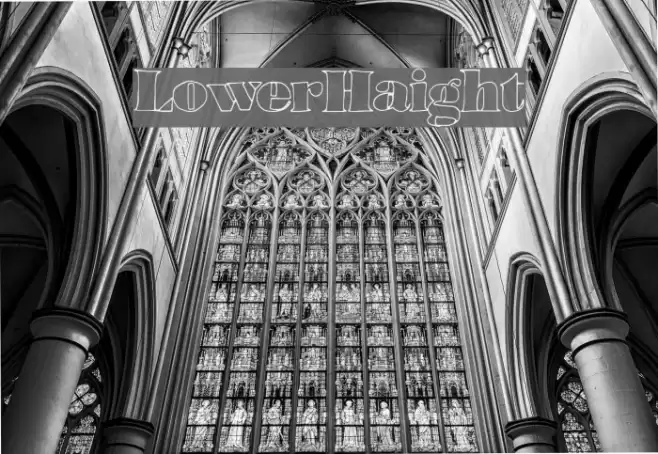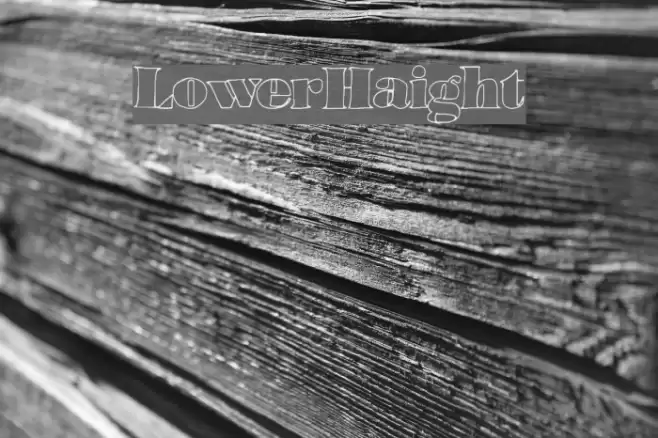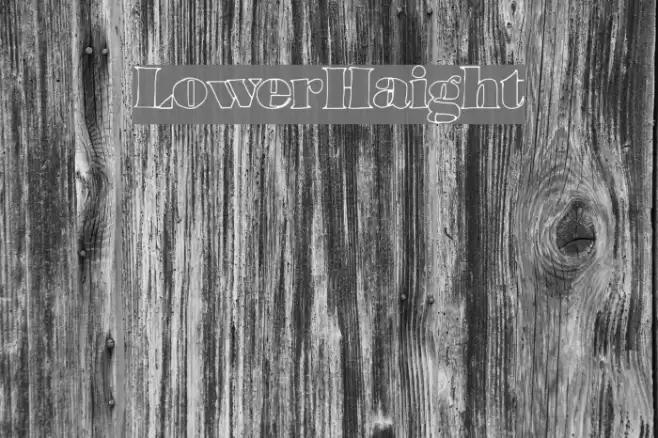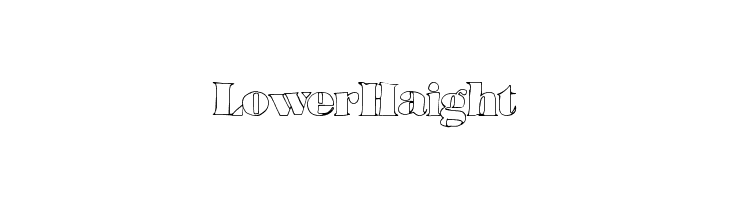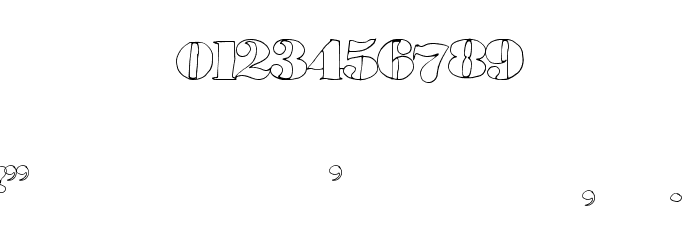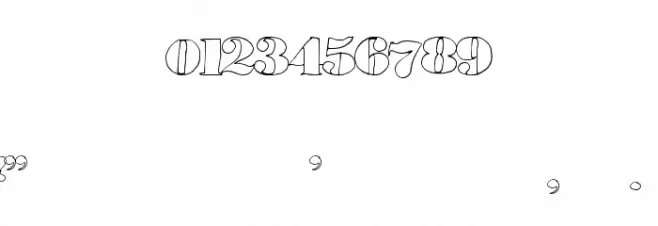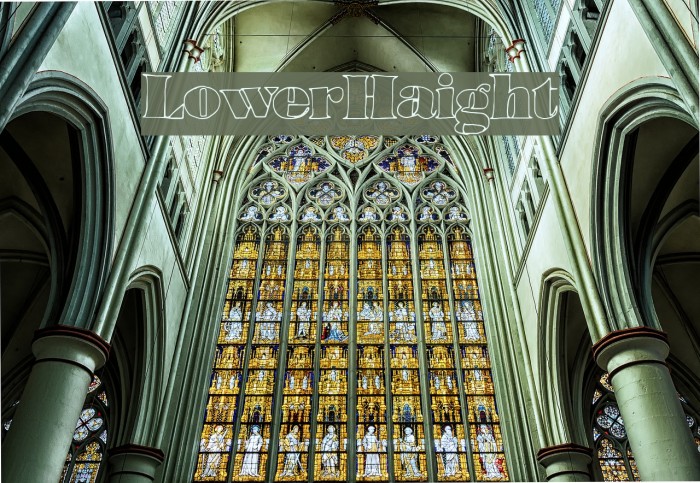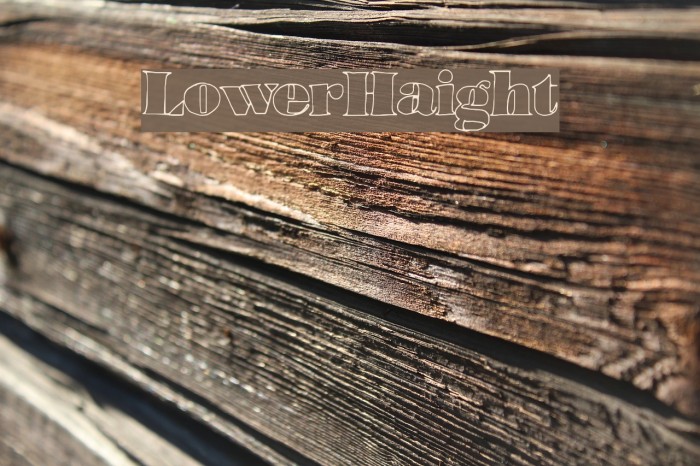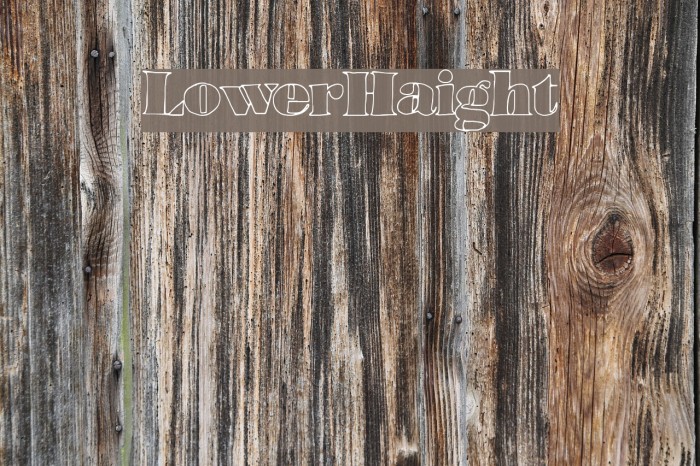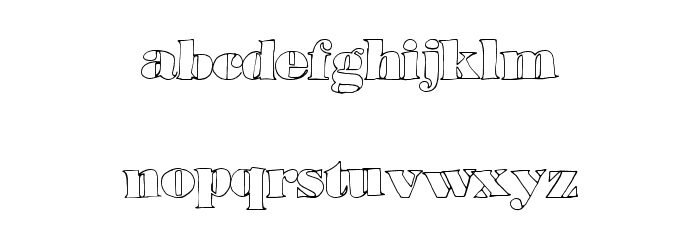
LowerHaight Font
LowerHaight Description
This font features a unique and artistic outline style, giving each character a bold and decorative appearance. The uppercase letters are characterized by their strong, geometric forms, while the lowercase letters maintain a consistent style with slightly softer curves. The numbers and special characters follow the same design principles, ensuring a cohesive look across all glyphs. The font's outline design adds a playful and creative touch, making it stand out in any project. Its distinctive style is both eye-catching and versatile, suitable for a variety of design applications.
An artistic outline font with bold, geometric uppercase and softer lowercase letters from Uncategorized fonts.